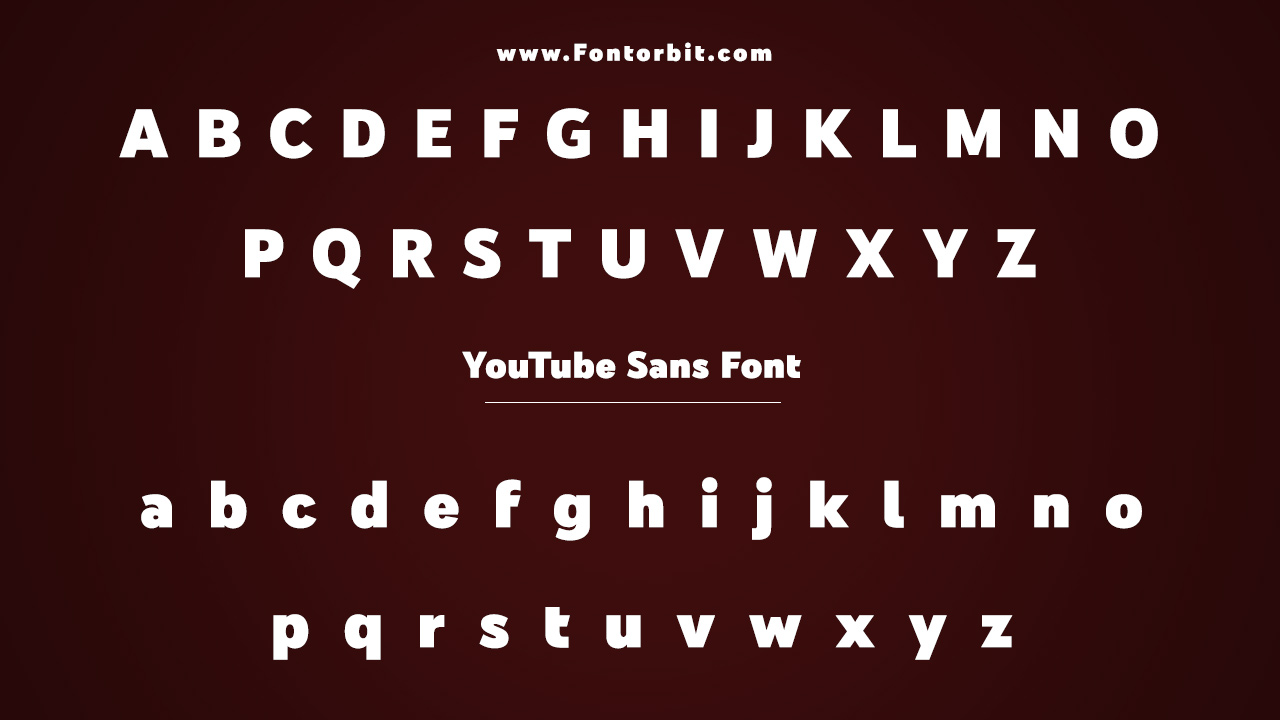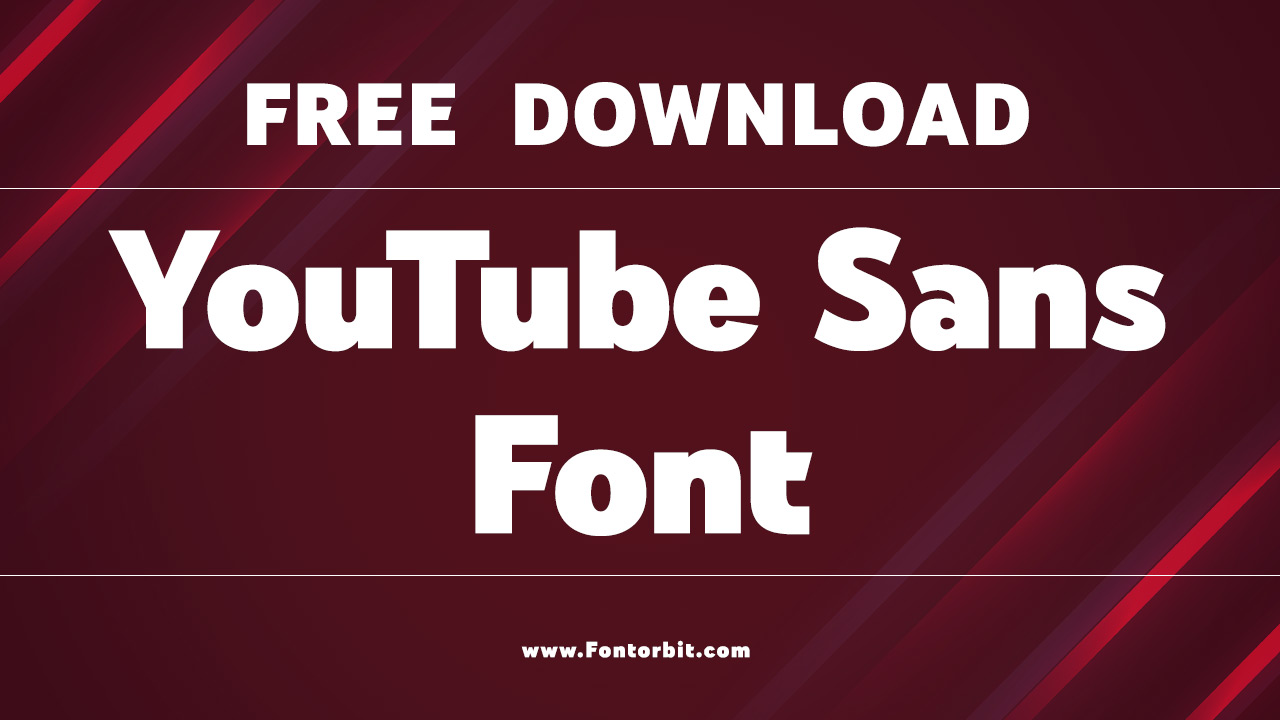
YouTube Sans is a proprietary font designed by Google, specifically for the YouTube brand. First launched in 2017, this typeface was created to align with YouTube’s brand identity.
Its design draws inspiration from YouTube’s play button icon, with rounded forms and angular diagonal cuts. The font family is not available for free download as it is exclusive to YouTube’s platform and branding.
Notable Uses Of YouTube Sans
YouTube uses YouTube Sans across its branding, including its logo, interface, and promotional content. It provides a modern, streamlined look that enhances digital experiences. YouTube Sans is excellent for digital branding, UI/UX design, and web applications. It can be used for:
- App interfaces
- Websites
- Social media visuals
YouTube Sans is a custom font that perfectly captures the essence of the YouTube brand, from its quirky, humanist design to its highly functional and screen-optimized character set. As YouTube continues to evolve, the font remains a key element of its identity, supporting its products across different platforms.
1.Where Is Youtube Sans Commonly Used?
Across YouTube’s branding, logos, and digital interface.
2.Is Youtube Sans Readable On Mobile Devices?
Yes, it’s optimized for digital displays.
3.Can I Use Youtube Sans In Print?
Primarily designed for digital use but adaptable to print.
4.Does Youtube Sans Support Multiple Languages?
It supports several Unicode blocks.